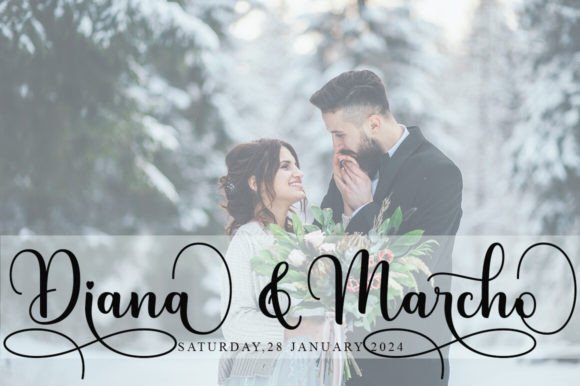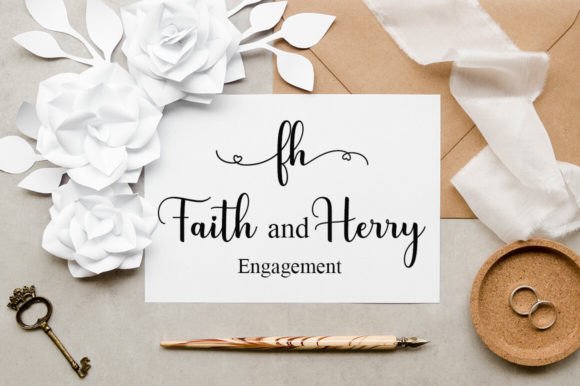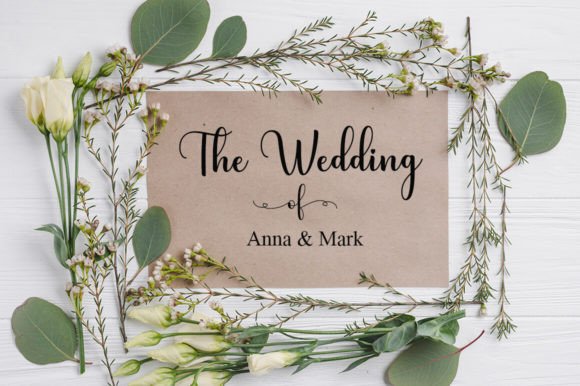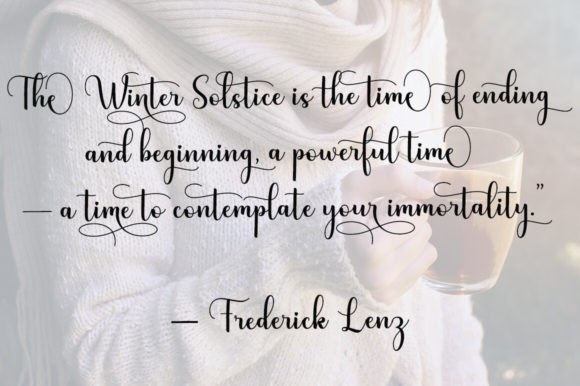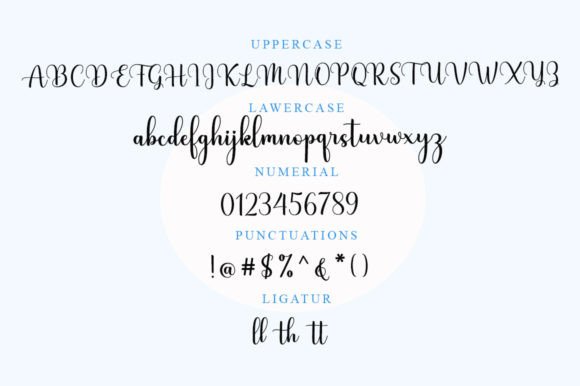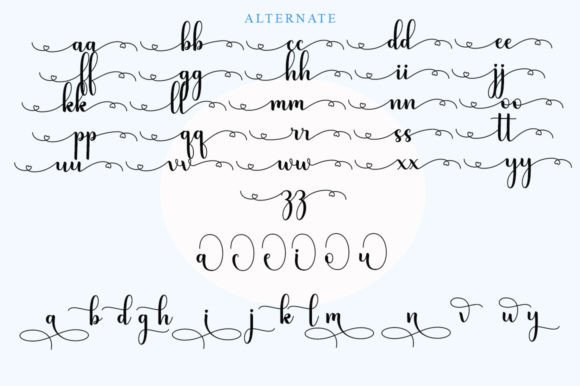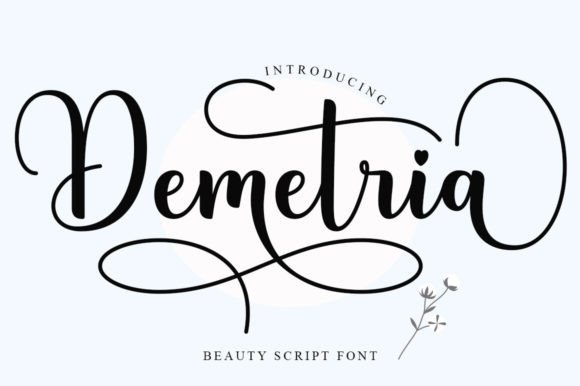
Discover the Elegance of Demetria Font: A Timeless Choice for Designers and Crafters
In the world of typography, few fonts capture the essence of elegance and sophistication as beautifully as the Demetria font. This delicate, elegant, and flowing handwritten font has been making waves among designers and crafters alike, and for good reason. Its incredibly distinct and timeless style makes it the perfect choice for a wide range of projects, from branding and advertising to crafting and DIY endeavors.
The Unique Charm of Demetria Font
Demetria font boasts a unique charm that sets it apart from other fonts in its category. Its flowing lines and delicate curves evoke a sense of refinement and luxury, making it ideal for projects that require a touch of sophistication. Whether you’re designing a logo, creating a social media graphic, or crafting a handmade card, Demetria font is sure to add a level of elegance and poise to your work.
One of the standout features of Demetria font is its PUA (Private Use Area) encoding. This means that users can access all of the font’s glyphs and swashes with ease, allowing for greater flexibility and creativity in design. With PUA encoding, you can unlock the full potential of Demetria font and take your designs to the next level.
Demetria font is incredibly versatile, making it suitable for a wide range of projects and applications. Some of the ways you can use Demetria font include:
- Branding and Advertising: Create stunning logos, business cards, and marketing materials that exude elegance and sophistication.
- Crafting and DIY: Add a touch of luxury to your handmade crafts, such as cards, scrapbook pages, and journal entries.
- Social Media Graphics: Create eye-catching social media graphics, such as Instagram posts and Facebook covers, that showcase your brand’s personality.
- Wedding and Event Design: Use Demetria font to create beautiful wedding invitations, programs, and other event materials.
Why Choose Demetria Font?
With so many fonts to choose from, why should you choose Demetria font for your next project? Here are just a few reasons:
- Unique Style: Demetria font boasts a unique and timeless style that will set your designs apart from the crowd.
- Elegance and Sophistication: This font exudes elegance and sophistication, making it perfect for projects that require a touch of luxury.
- Easy to Use: With PUA encoding, accessing glyphs and swashes is easy, making it simple to get the most out of Demetria font.
- Versatile: Demetria font is suitable for a wide range of projects and applications, making it a great addition to any designer’s toolkit.
In conclusion, Demetria font is a must-have for designers and crafters looking to add a touch of elegance and sophistication to their work. Its unique style, PUA encoding, and versatility make it the perfect choice for a wide range of projects. Whether you’re a seasoned designer or a crafting enthusiast, Demetria font is sure to become a favorite in your collection. So why wait? Fall in love with Demetria font and start creating spectacular designs today!